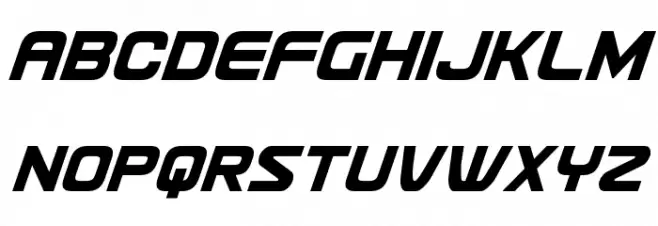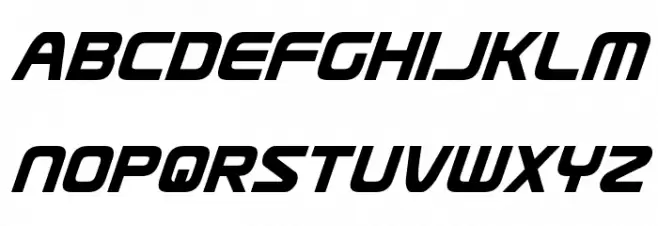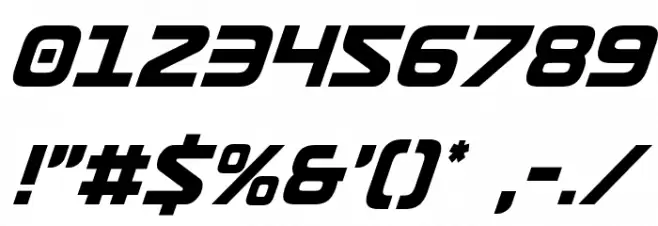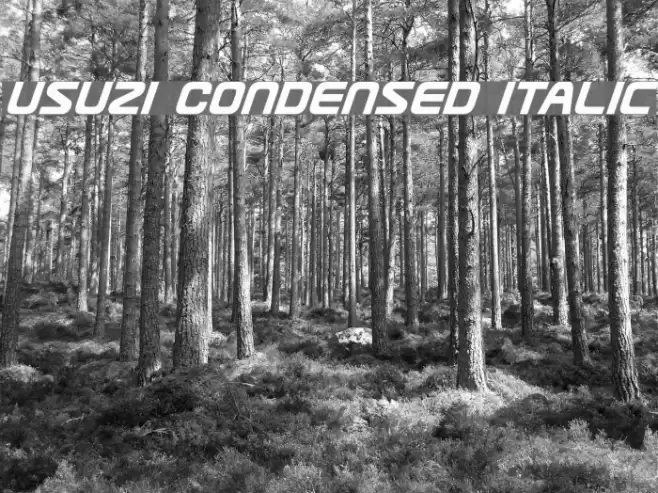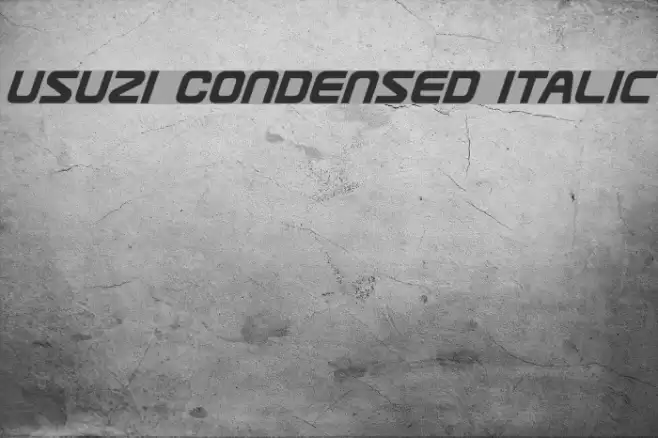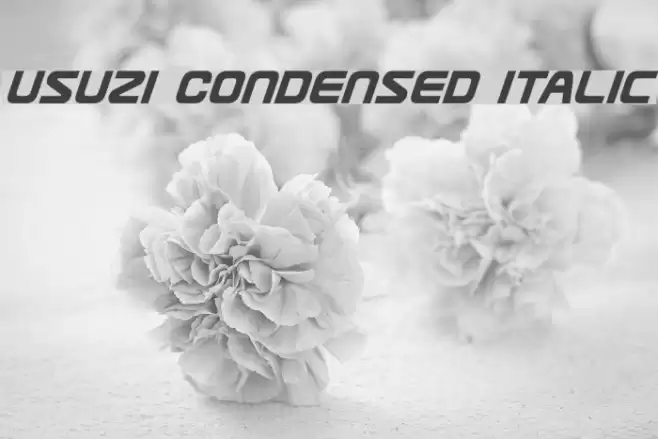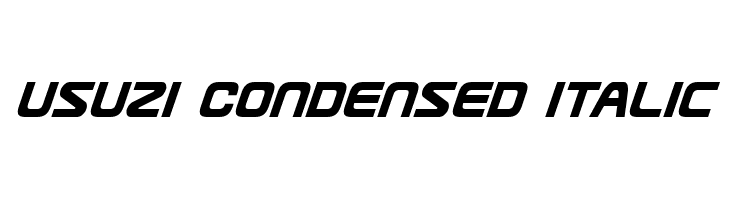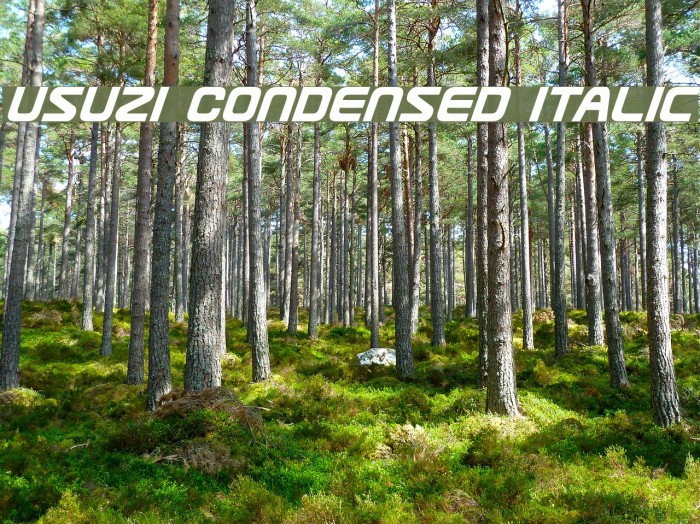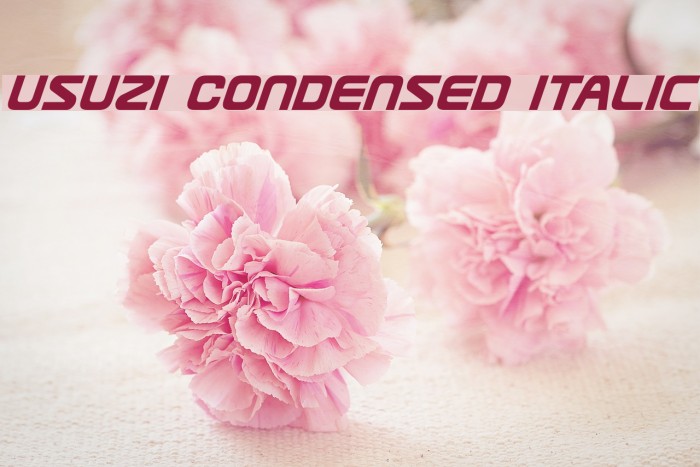
Usuzi Condensed Italic
This font features a sleek, modern design with a condensed structure and italicized form. The characters are bold and angular, giving a sense of speed and dynamism. The strokes are consistent in thickness, providing a uniform appearance across all letters and numbers. The slanted orientation adds a sense of motion, making it ideal for projects that require a contemporary and energetic feel. The font's condensed nature allows for efficient use of space, making it suitable for headlines and titles where impact is essential. The special characters maintain the same stylistic approach, ensuring cohesion throughout any text.
A modern, condensed italic font with bold, angular characters.
- Proposed Projects: Ideal for branding, sports team logos, automotive designs, and dynamic advertising materials.
- Width: Condensed
- Character Spacing: Tight